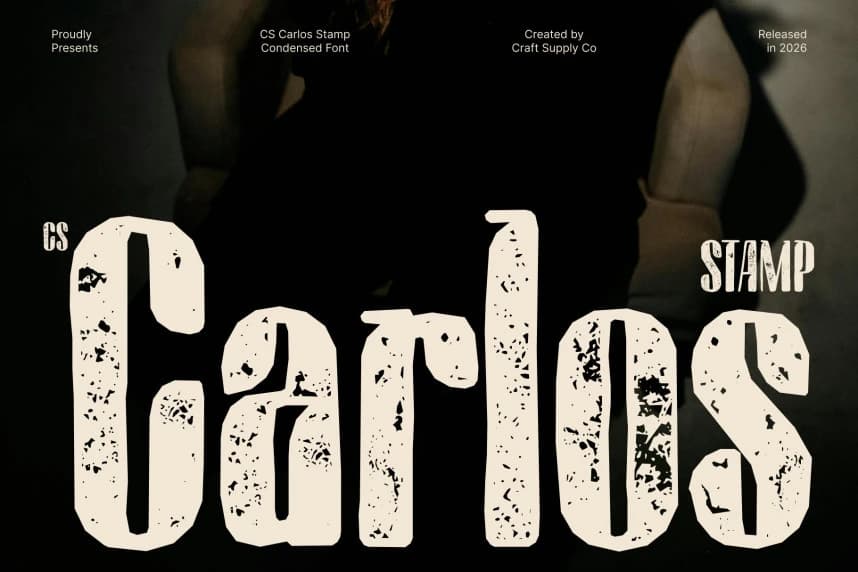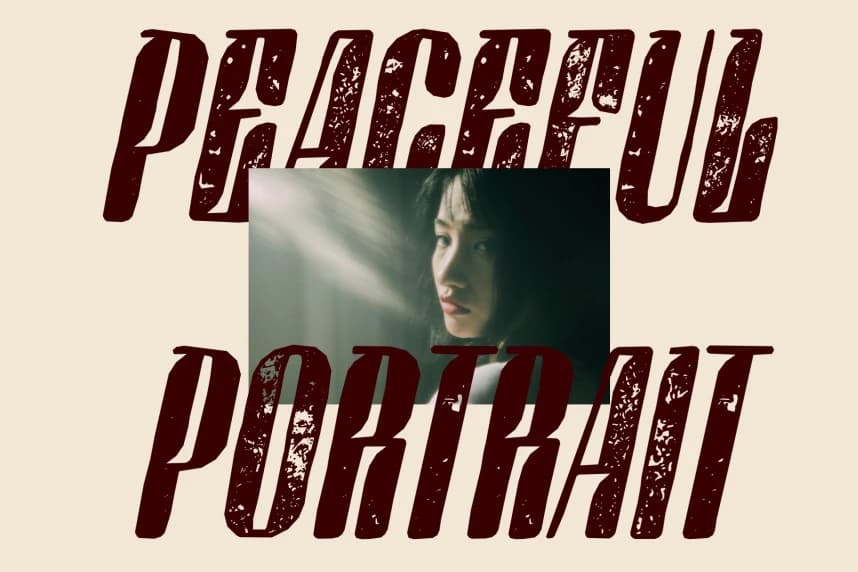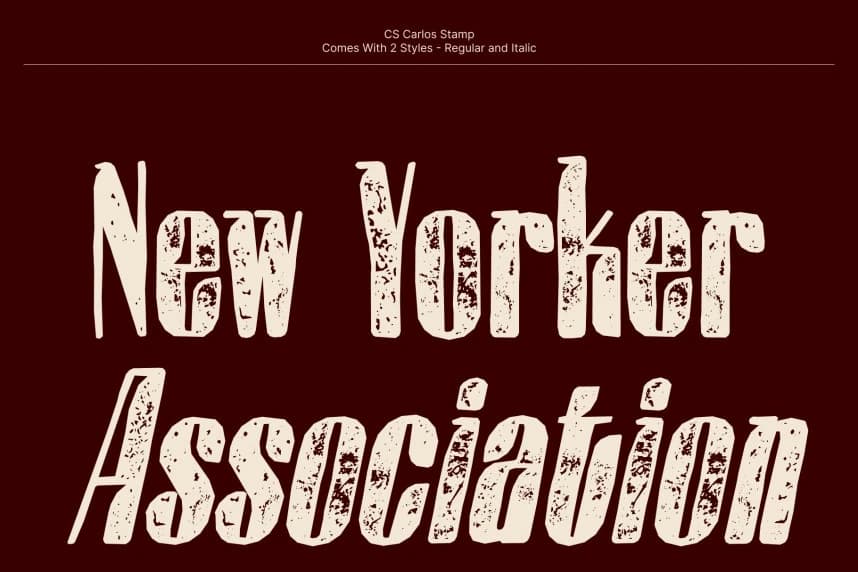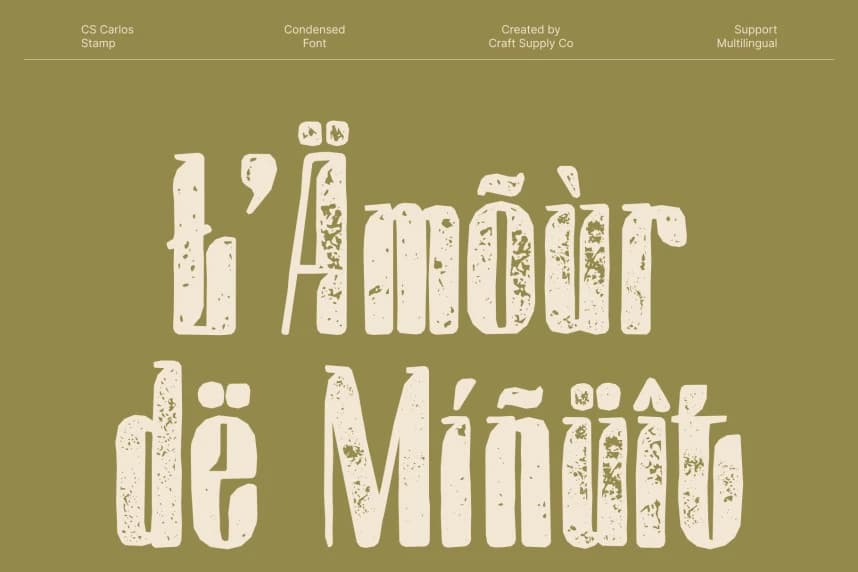
CS Carlos Stamp Font
CS Carlos Stamp Font – Compact Strength with Vintage Texture Modern Condensed Sans-Serif with Bold Presence. This is a modern sans-serif font defined by its bold, condensed letterforms that deliver a strong visual presence within a compact structure.